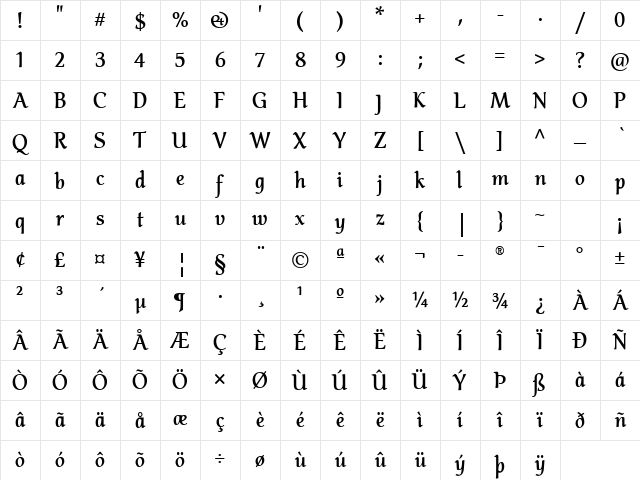
Althea Bold
Foundry: Pawel Burgiel
Designer: Pawel Burgiel
Design Context for Althea
Althea is a composed and adaptable typeface that performs quietly and consistently across a wide range of design contexts. Its bold stroke weight gives it real presence on the page.